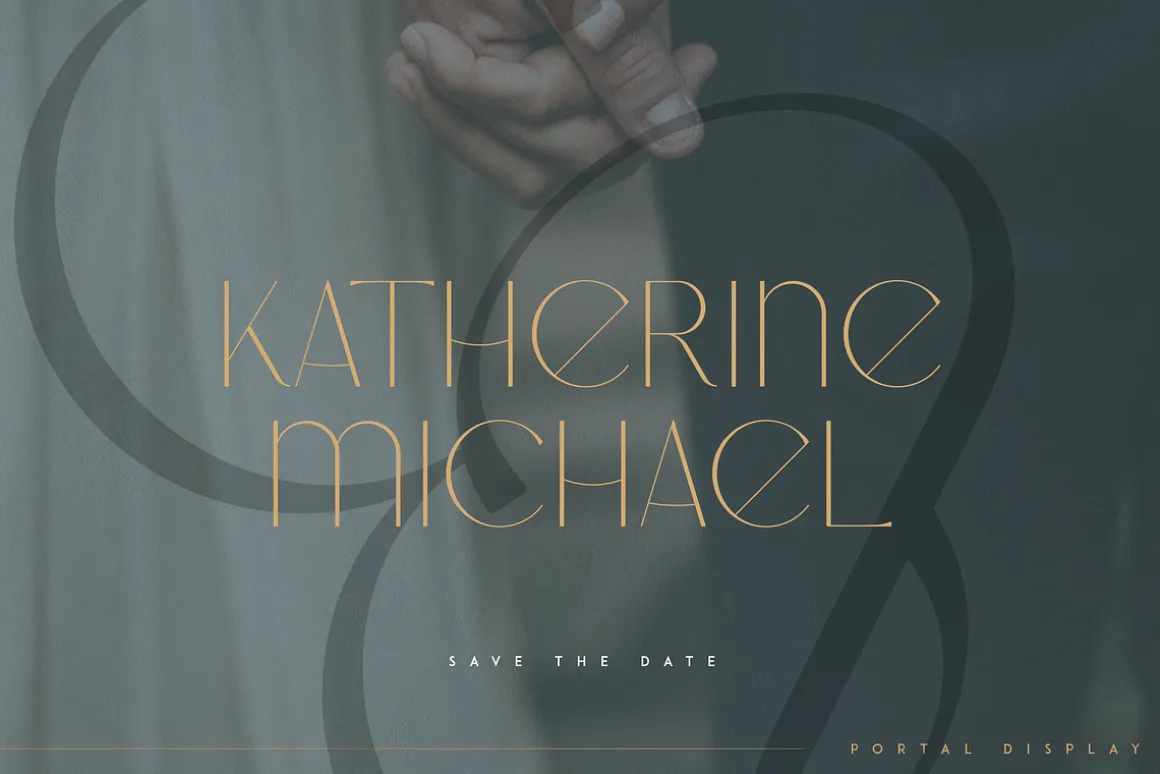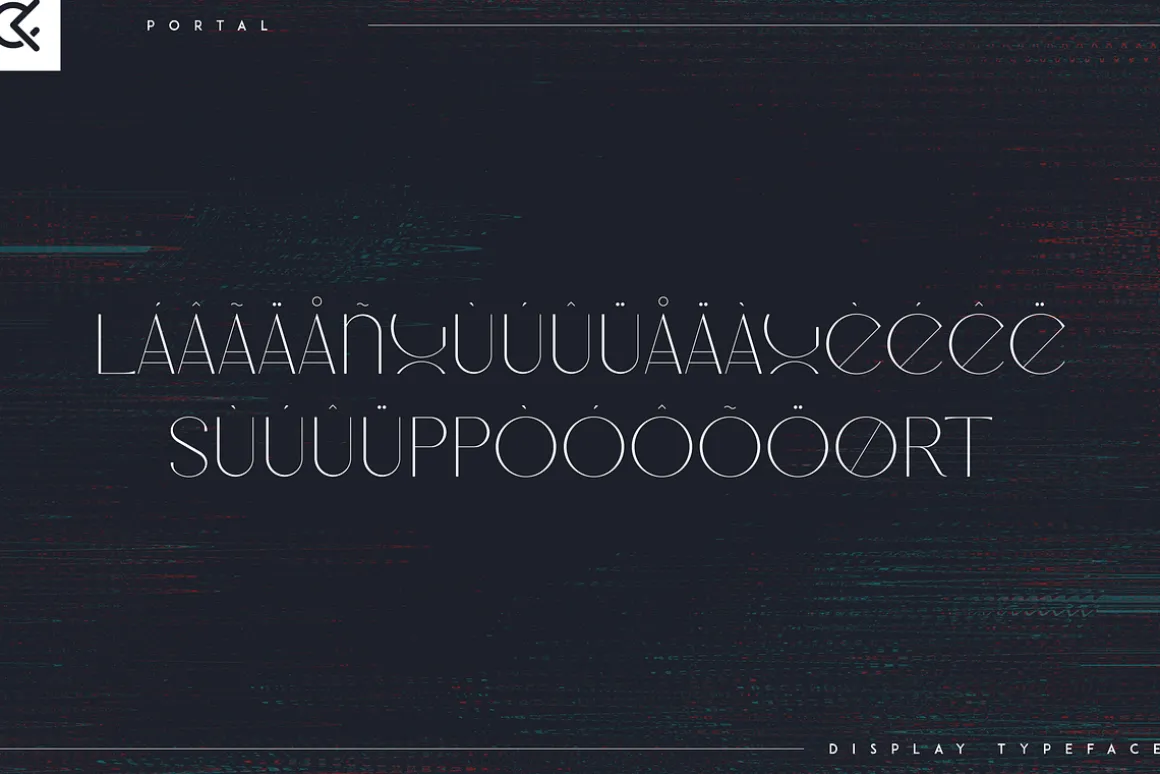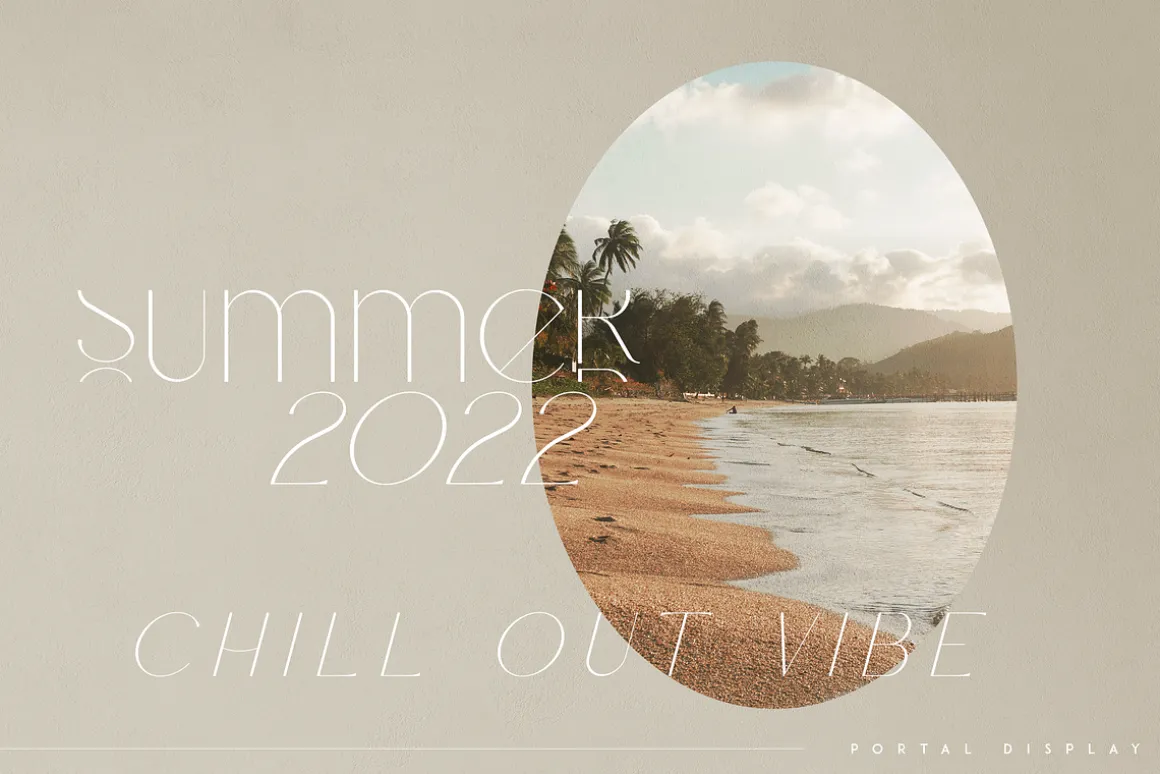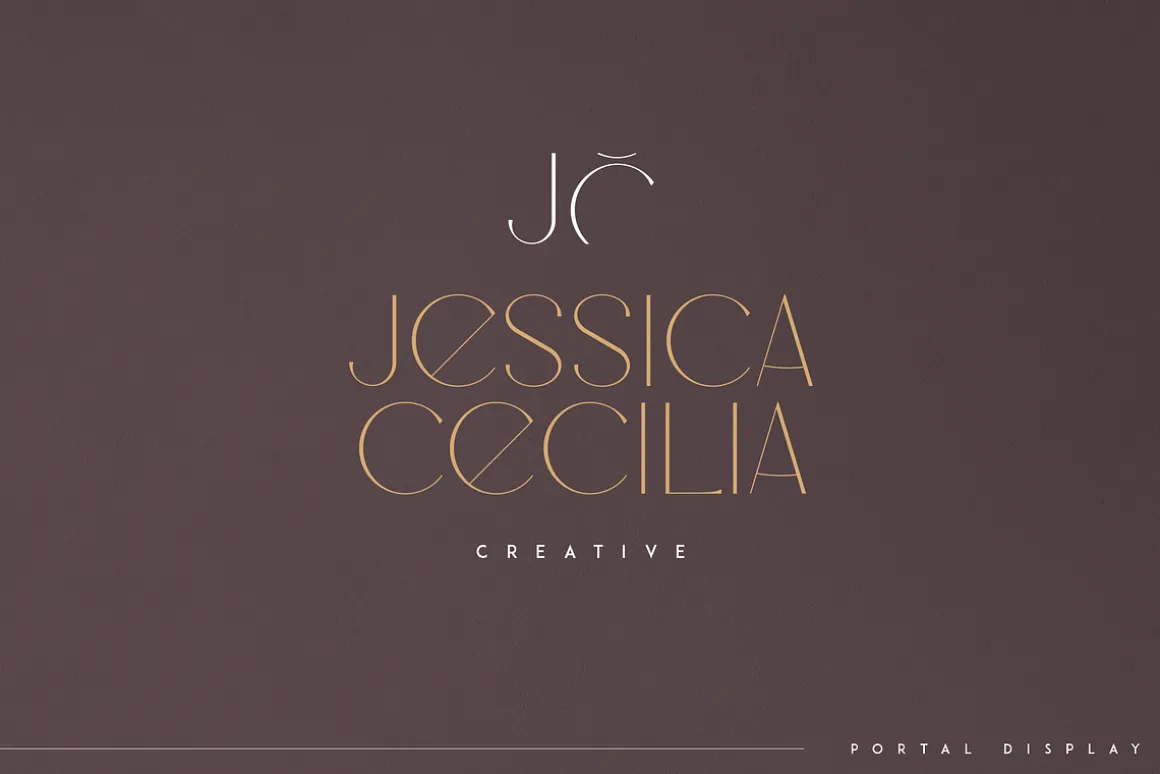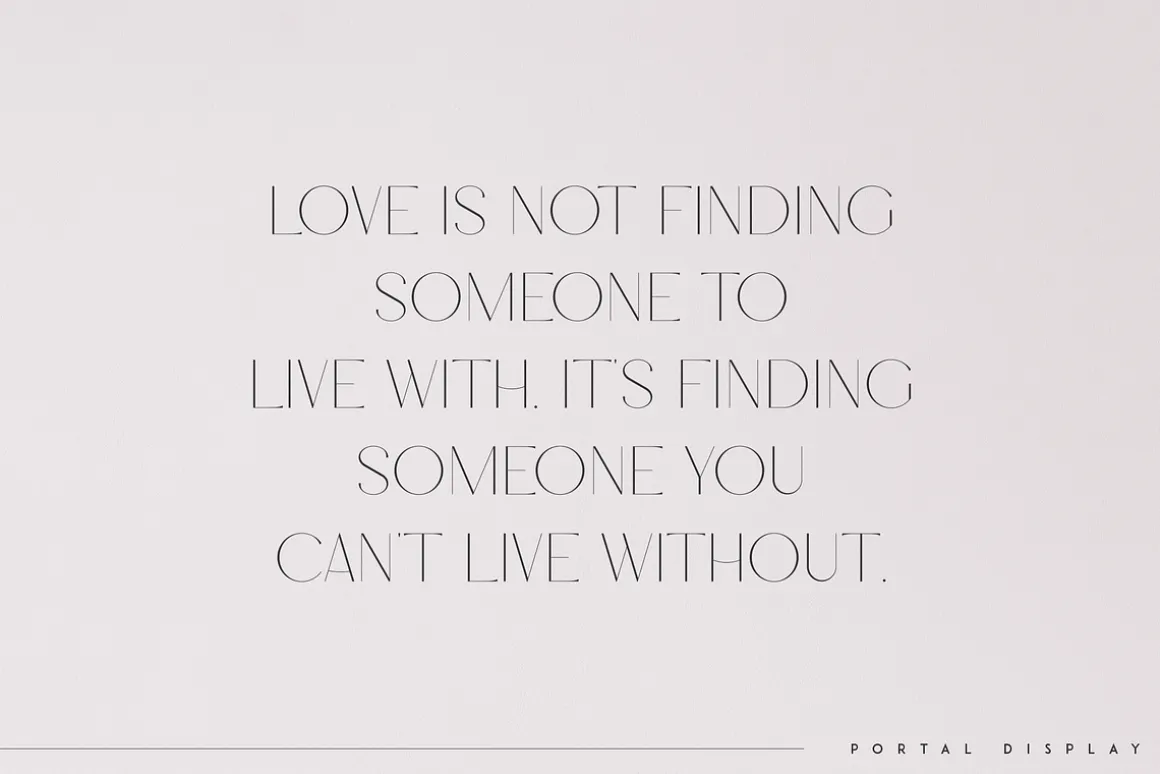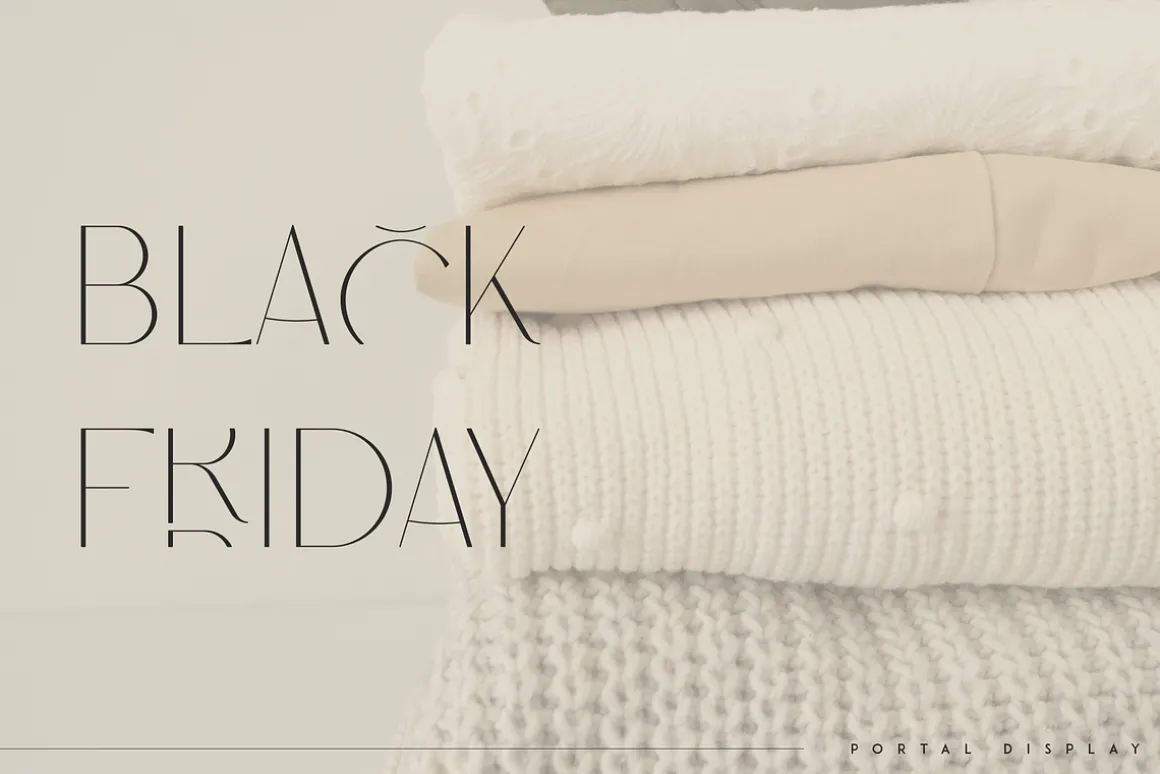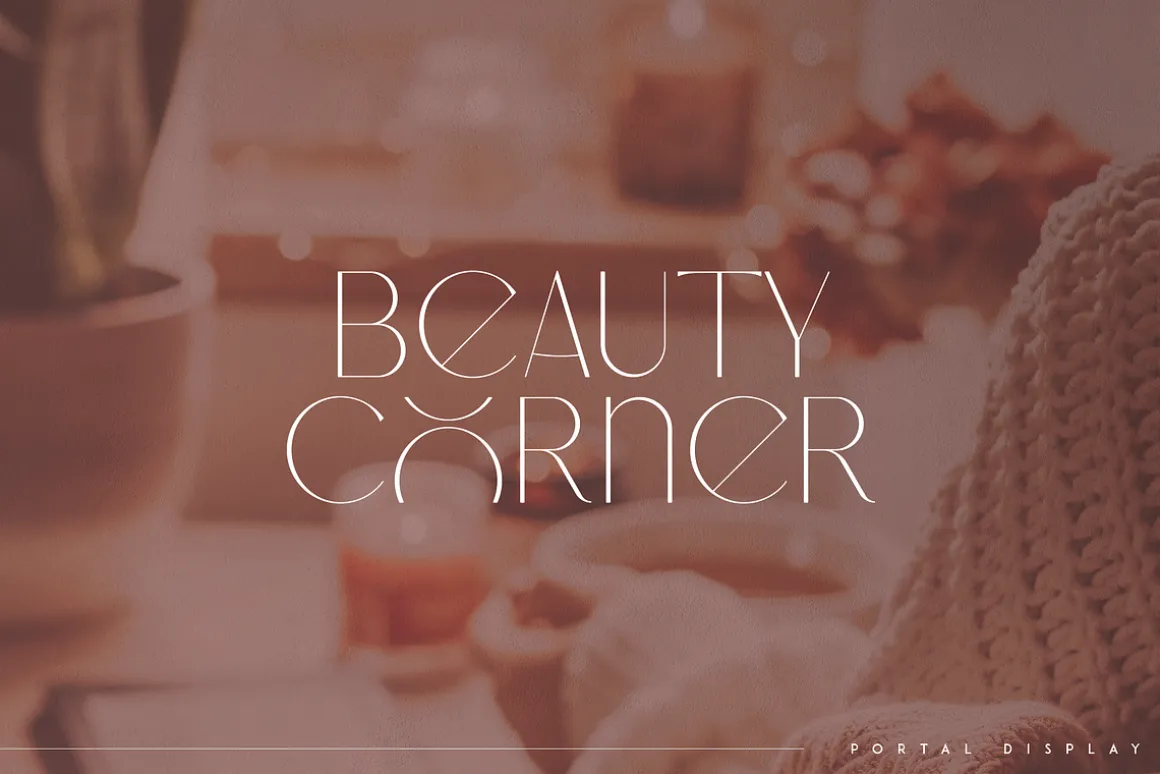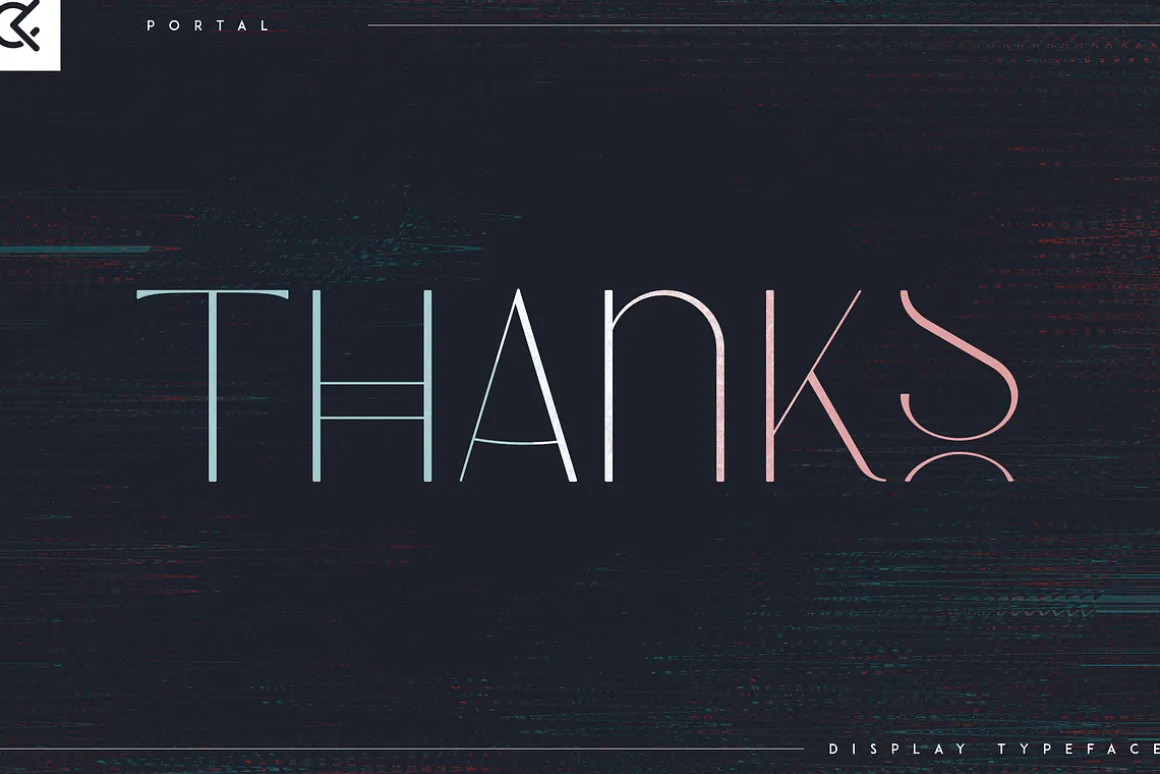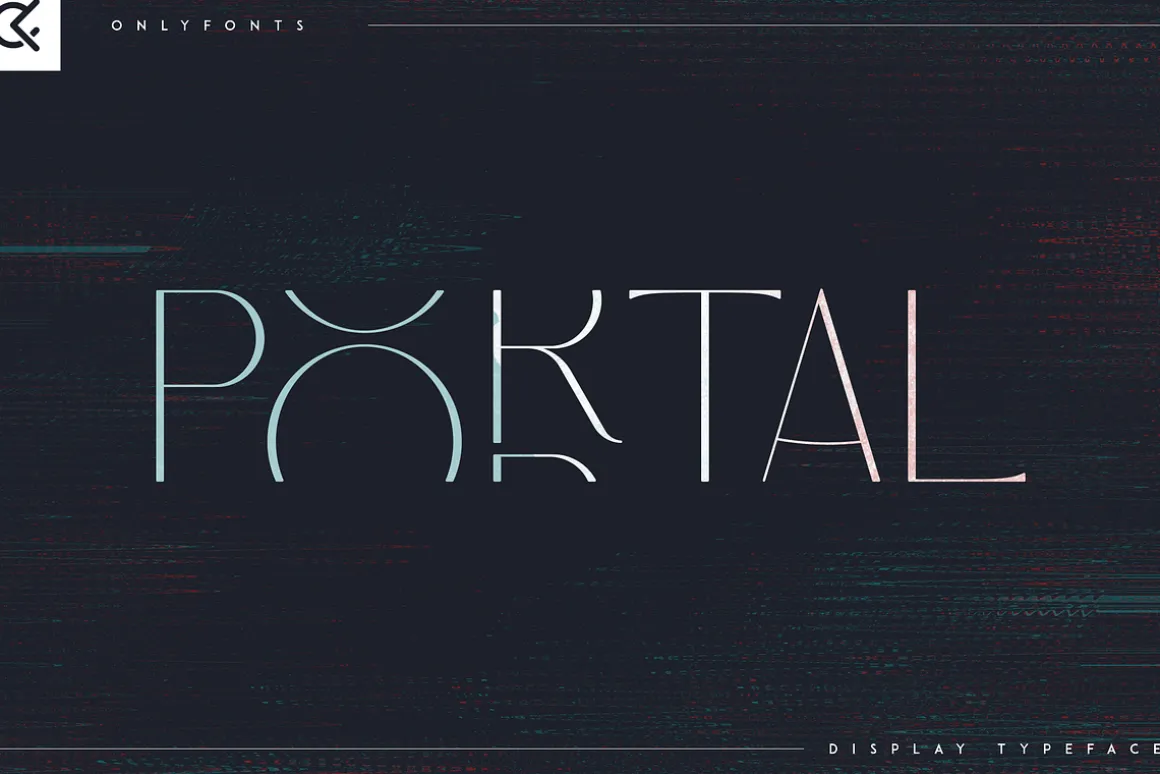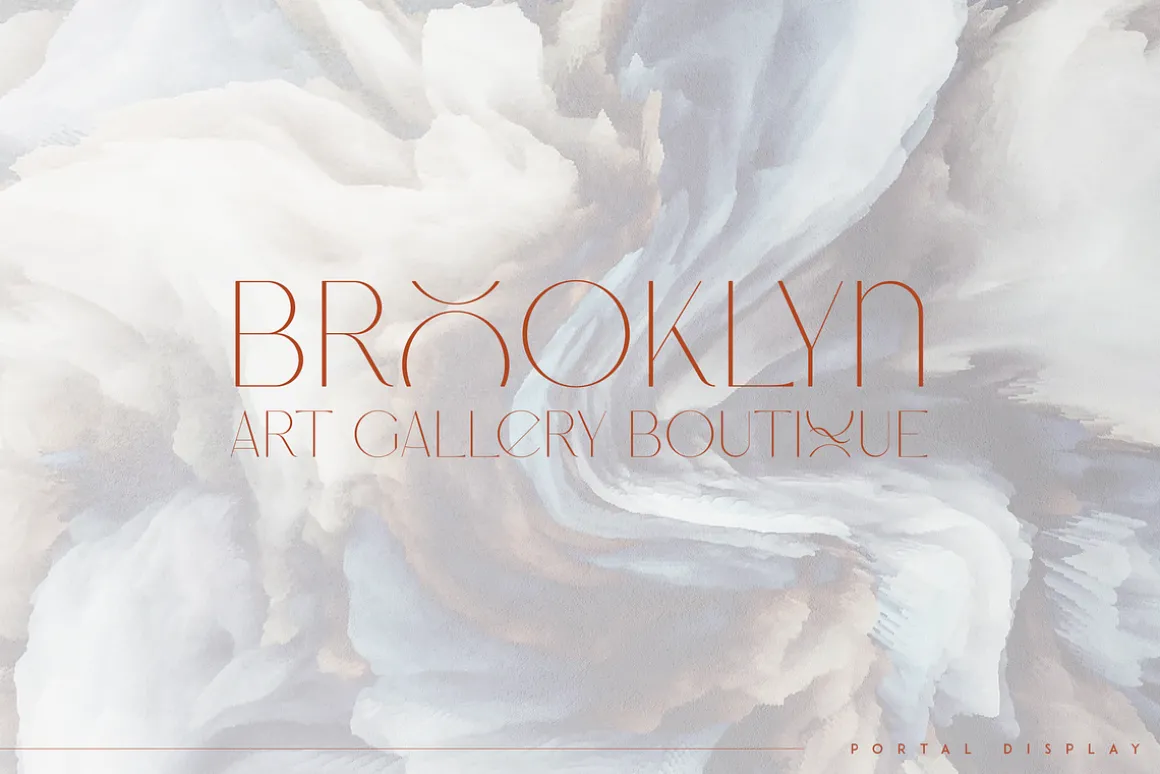
Introducing Portal – Creative Display tyepface – regular and italic fonts
Portal is creative and elegant font with multilingual support.It’s a very versatile font that works great in large and small sizes.
This font is perfect for branding projects, home-ware designs, product packaging, magazine headers – or simply as a stylish text overlay to any background image.
FEATURES
- Uppercase, numeral, punctuation & Symbol
- Multilingual support